Lucky Font
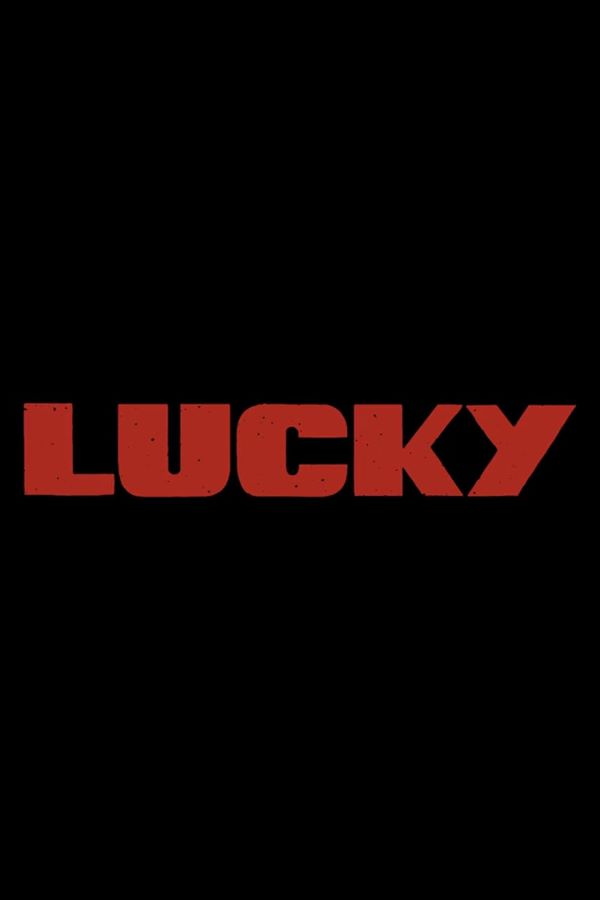
Lucky font is the display font used in the title treatment of the 2026 TV series Lucky, starring Quinn Aune, Matthew Rauch, and Aadyn Encalarde. The typeface is WOODTYPE Collection Modi, designed by Machalski of Borutta Foundry — a bold, characterful wood type revival that brings a raw, vintage press energy to the screen, perfectly matching the series’ gritty, grounded visual identity with letterforms that feel both timeless and strikingly physical.